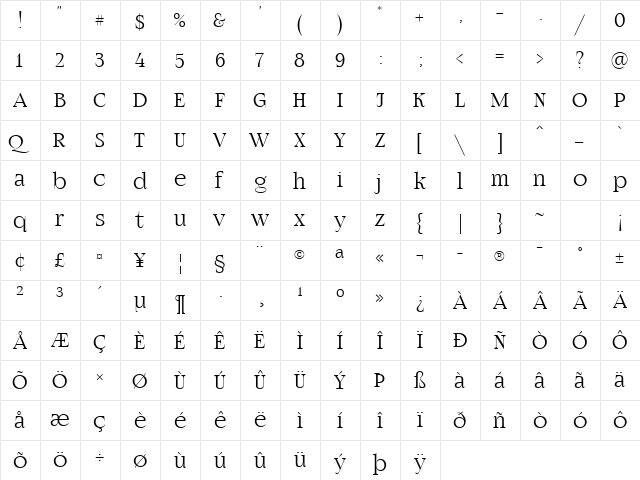
FogtwoNo5 Regular
Design Context for FogtwoNo5 Typeface
FogtwoNo5 offers clean, dependable letterforms without strong stylistic allegiance, making it a practical choice for designers who need flexibility.